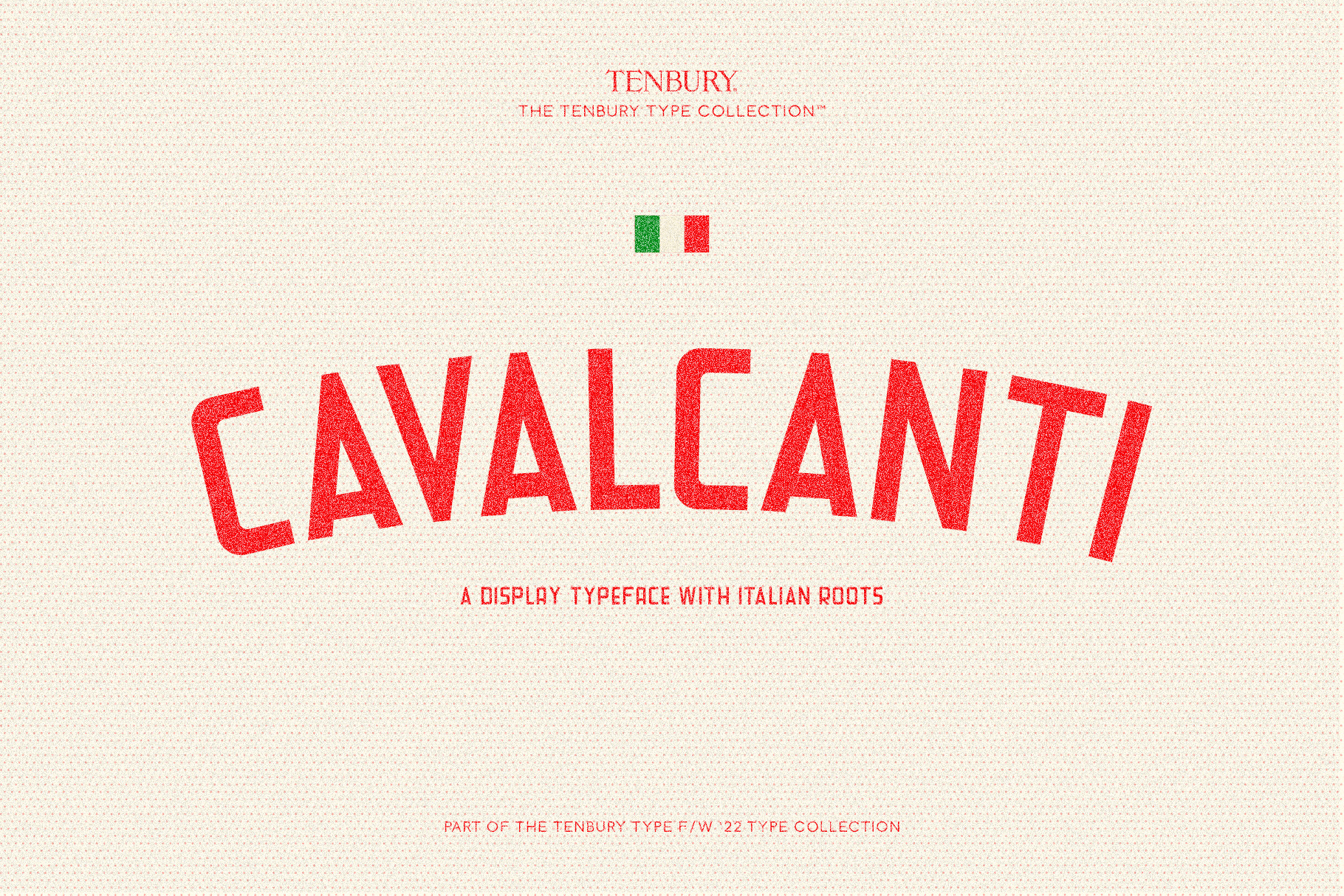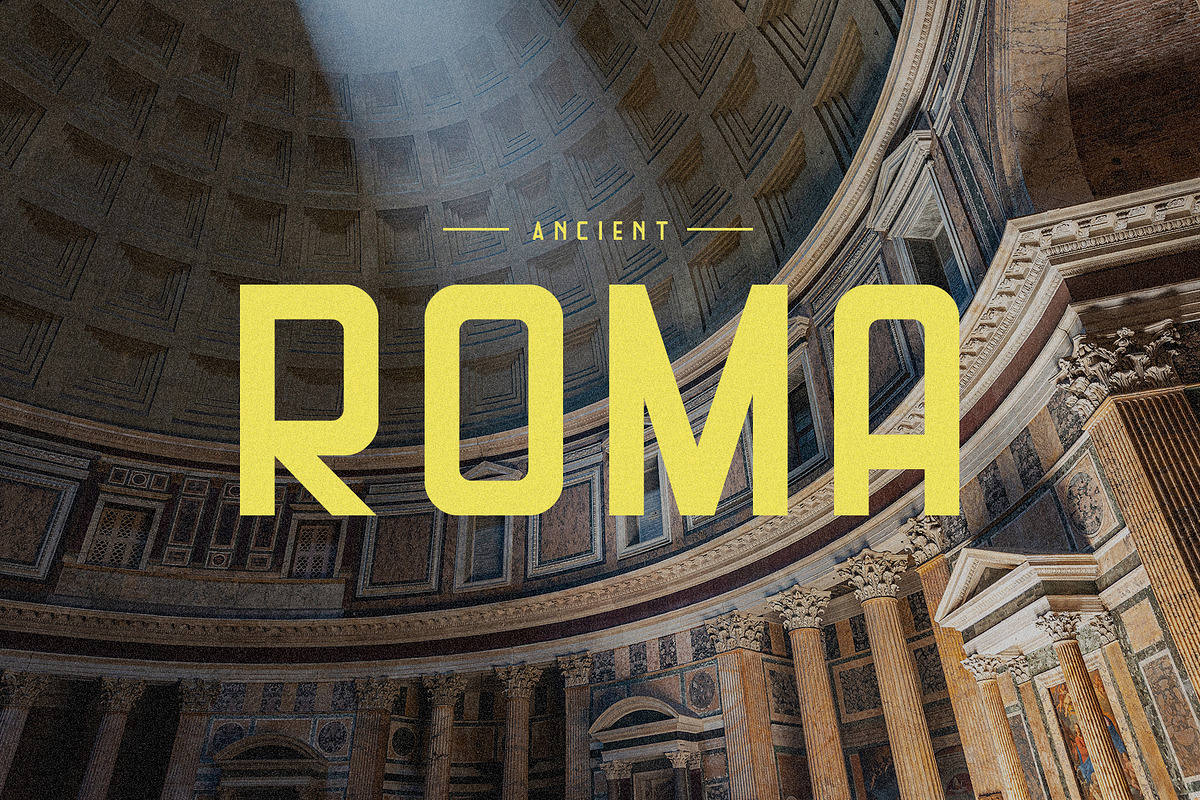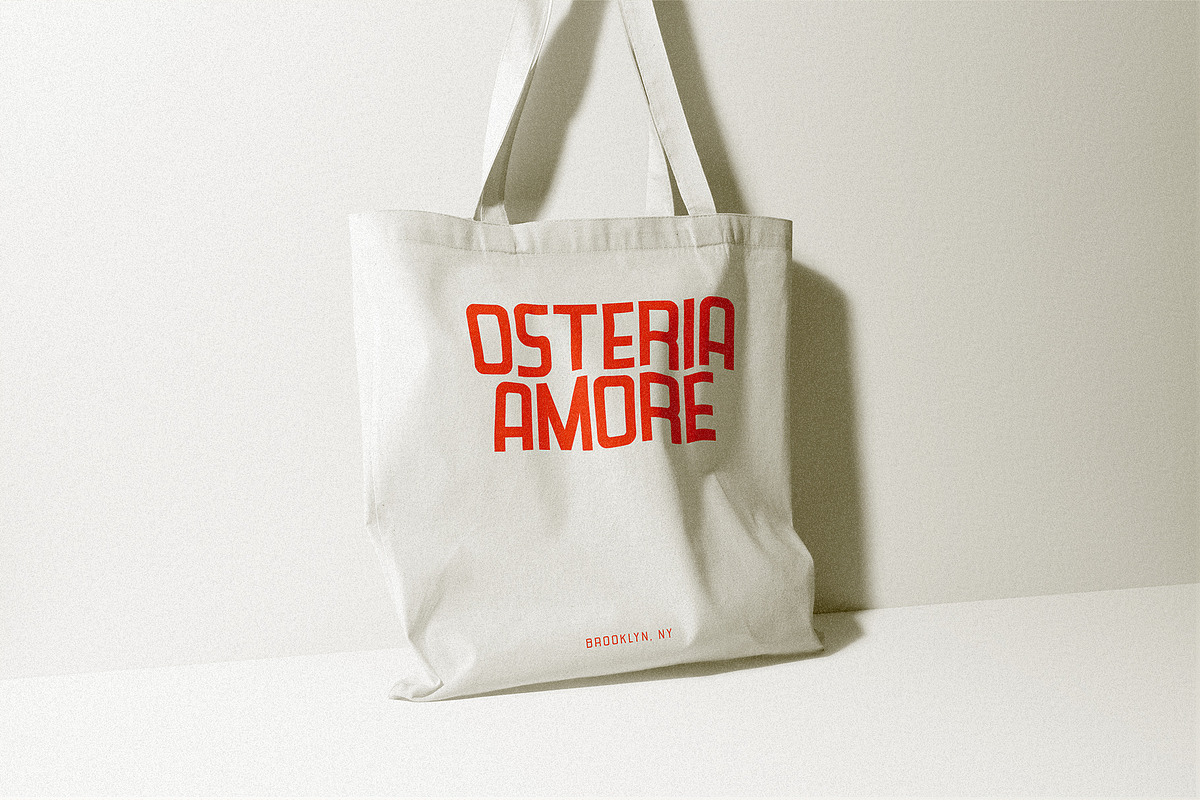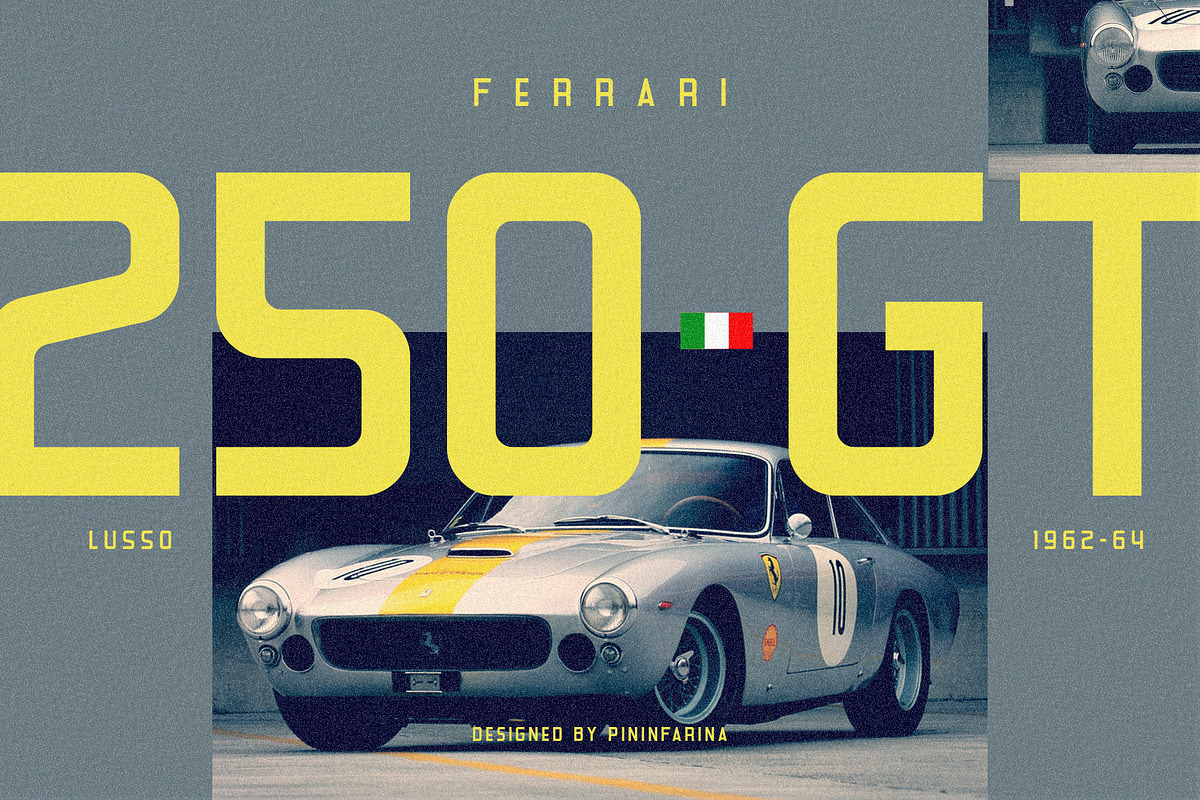
10B Cavalcanti: Italian Style Font
10B Cavalcanti is rooted in simple, legible typography seen on signage across all of Italy. With alternates of many of the characters you can find a style that will fit your project.
- Uppercase, Punctuation, & Numerals.
- Regular & Bold Weights